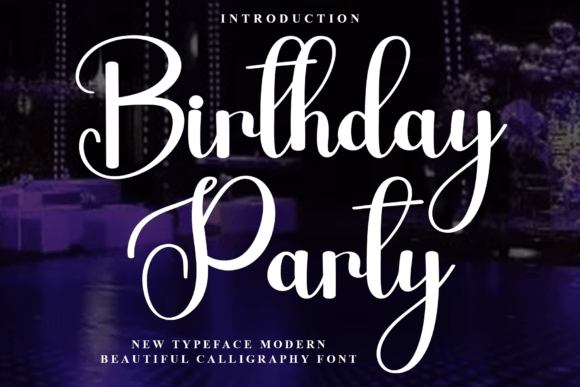
The Magic of Birthday Party Font: Elevate Your Designs with Whimsy and Cheer
I’ll never forget the time I was working on a birthday card design for a client’s kid’s party. I had the perfect concept, the colors were on point, but something was missing – a font that captured the essence of celebration and joy. That’s when I stumbled upon Birthday Party Font, and it was love at first sight! 🎉
This festive and merry typeface has been a game-changer for my designs, and I’m excited to share its magic with you. With its decorative elements and whimsical flair, Birthday Party Font adds a touch of enchantment to any project.
So, what makes Birthday Party Font so special? Let’s dive into the good stuff! ✨
• ✅ Versatile: Perfect for greeting cards, gift tags, holiday-themed projects, and more
• ✅ Cheerful and nostalgic: Brings a warm, fuzzy feeling to your designs
• ✅ High-quality: Professionally crafted for crisp and clear rendering
Now, no font is perfect, and Birthday Party Font has a few minor quirks: 🤔
• ⚠️ Limited use cases: May not be suitable for formal or professional designs
• ⚠️ Glyph overload: With so many glyphs to choose from, it can be overwhelming to navigate
The Story Behind Birthday Party Font
Legend has it that the designer of Birthday Party Font was inspired by childhood birthday parties and the joy of celebration. They wanted to create a font that would capture the essence of those special moments and bring a smile to people’s faces.
With its unique blend of decorative elements and whimsical flair, Birthday Party Font is sure to become a favorite in your design arsenal.